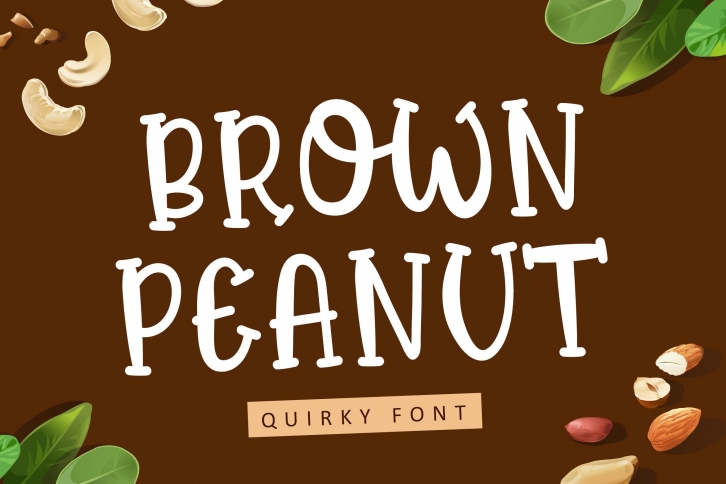
Brown Peanut - Quirky Font Download
Brown Peanut is a great font that was designed by Bayu Suwirya. Imagine the amount of combinations you can create using this font! The archive is 18.19 MB and it was released on December 11, 2020. Brown Peanut looks beautiful on wedding invitations, greeting cards, logos, posters, labels, t-shirt designs, logos, business cards and is perfect for use in ink or watercolor works, fashion, magazines, packaging and food menus, children's books and more!